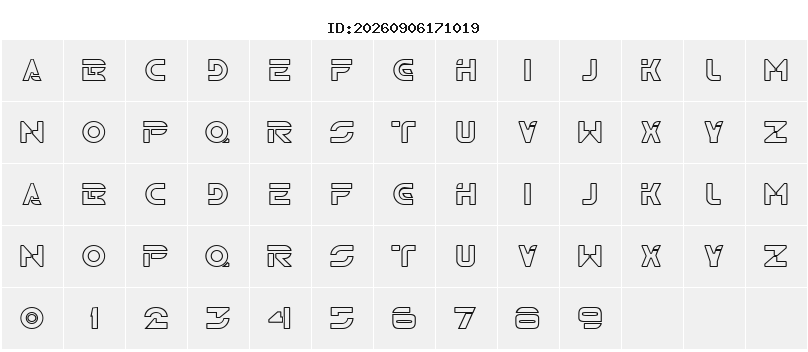
• Font Name: TR2N
• Full Font Name: TR2N
• Copyright: Original design created by Disney. Full font designed and created by Jeff Bell.
• Designer: Jeff Bell
• Manufacturer: Jeff Bell
About TR2N.ttf
TR2N.ttf is a modern, elegant sans-serif font designed for ultimate readability and visual harmony. Perfect for branding, headlines, web design, and print materials.